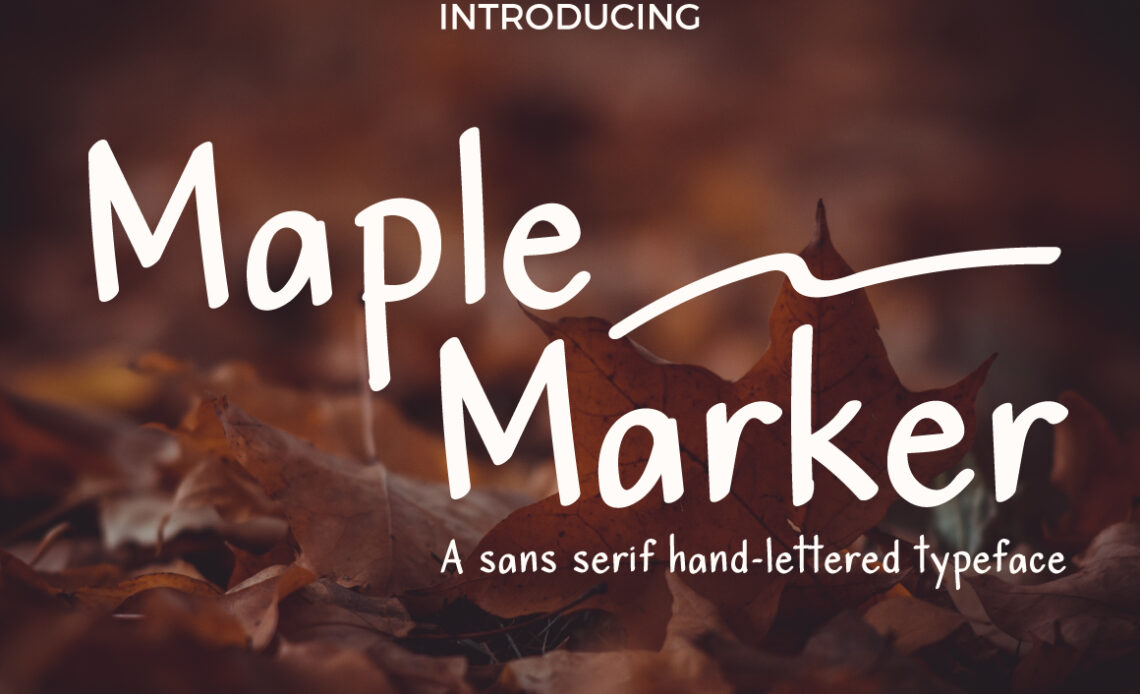
Journey into the world of Maple Marker, a sans serif font family that exudes order and tidiness. Dive into the elegance and charm it brings, transforming your designs into captivating masterpieces. As you explore the intricate letterforms, discover the beauty in simplicity, allowing Maple Marker to elevate your creations.
With Maple Marker, readability takes center stage. Its smooth, flowing lines ensure effortless comprehension, making it ideal for captivating headlines, engaging body copy, and immersive web designs. Witness the harmony between form and function as your words dance across the page, leaving a lasting impression on your audience.
Crafted with versatility in mind, Maple Marker effortlessly complements a myriad of design aesthetics. From sleek minimalism to bold maximalism, it seamlessly adapts, adding a touch of sophistication to any visual landscape. Whether you're crafting a timeless logo, an informative brochure, or an enchanting social media post, Maple Marker gracefully elevates your designs, capturing attention and leaving a lasting impression.
Indulge in the creative possibilities that await with Maple Marker. Let its clean and charming aesthetic enhance your designs, captivating your audience with its orderly and tidy vibe. Embrace the power of simplicity and elevate your creations to new heights. Unleash your imagination and embark on a design journey like never before, leaving an indelible mark on the digital landscape.